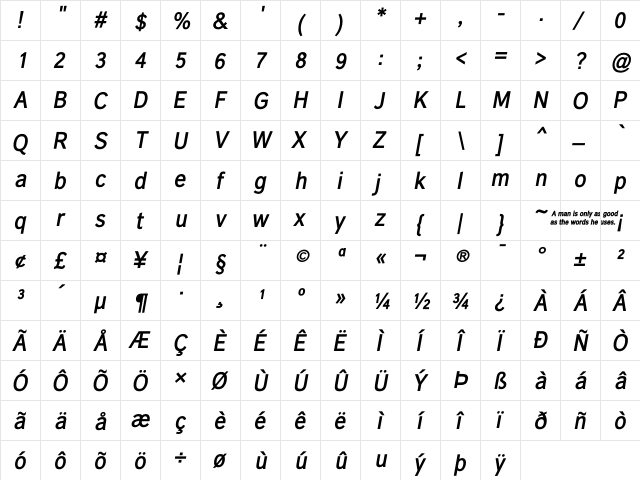
Carnova SemiBold Oblique Regular
Design Context for Carnova SemiBold Oblique Typeface
Carnova SemiBold Oblique is a composed and adaptable typeface that performs quietly and consistently across a wide range of design contexts. Its italic angle brings a sense of urgency and motion to the letterforms. Its bold stroke weight gives it real presence on the page.
Pro Tip: Use Carnova SemiBold Oblique for emphasis, pull quotes, and subheadings where its slanted energy can add rhythm to the layout.